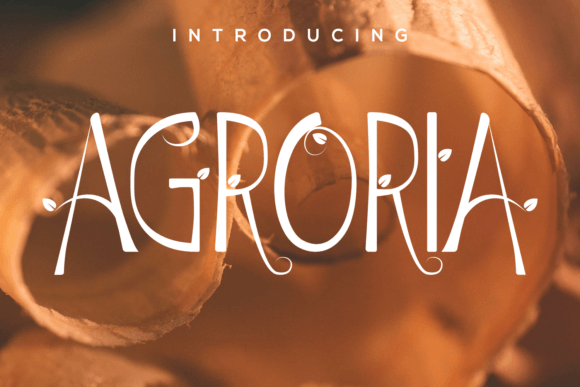
A New Dimension in Typography: Agroria Font
As creatives, we’ve all been there – staring at a blank canvas, waiting for that spark of inspiration to strike. It’s in those moments that we need the right tools to bring our ideas to life. For designers seeking a fresh and organic look, the wait is over. Agroria Font is here to revolutionize the way you approach typography.
This elegant display font is designed to evoke a sense of natural beauty, making it perfect for a wide range of design projects. From branding and advertising to packaging and editorial design, Agroria Font’s versatility is unmatched. With its unique blend of style and sophistication, it’s no wonder this font has become a favorite among designers.
Whether you’re a seasoned pro or just starting out, Agroria Font is a valuable addition to your design toolkit. Its organic feel and elegant lines make it an ideal choice for creating eye-catching designs that stand out from the crowd.
Agroria Font Key Features
- Font Family: Agroria Font is a modern sans-serif font family with a unique, hand-drawn feel.
- Character Set: Agroria Font includes a wide range of characters, including Latin, Cyrillic, and Greek alphabets, as well as punctuation and symbols.
- Unique Characteristics: Agroria Font features a unique, hand-drawn feel and a range of custom-designed ligatures and alternates.
Agroria Font Review
I recently had the chance to work with Agroria Font, and I’m excited to share my thoughts on this beautiful font family.
- Unique and elegant design: Agroria Font has a distinctive look that sets it apart from other fonts. Its combination of modern and classic elements makes it perfect for a wide range of projects.
- High-quality vector graphics: The font’s vectors are crisp and clean, making it ideal for printing and digital applications.
- Excellent legibility: Agroria Font is highly readable, even at small sizes, which is essential for any font.
- Limited language support: Agroria Font may not have the same level of language support as other fonts, which could be a concern for international projects.
- No bold or italic weights: While the font has a range of weights, it’s missing bold and italic options, which might be a limitation for some users.
Agroria Font is a beautiful and high-quality font family that excels in terms of design and legibility. While it has some limitations, its unique style and excellent vector graphics make it a great choice for many projects. If you’re looking for a font that stands out from the crowd, Agroria Font is definitely worth considering.
Tips for Getting the Most Out of Agroria Font
Here are some tips to help you get the most out of Agroria Font:
- Experiment with different font sizes and styles to find the perfect look for your design.
- Use Agroria Font in combination with other fonts to create a unique and visually appealing design.
- Pay attention to font pairing and balance to ensure your design looks professional and polished.
Agroria Font is ideal for:
- Print and digital marketing materials. Alternatives to Agroria Font
- Use Agroria Font for the main title, “Garden Party Invitation”, to set the tone for the event.
- Pair Agroria Font with a playful, handwritten font for the details, such as the date and time.
- Combine Agroria Font with floral illustrations and watercolor elements to create a cohesive and whimsical design.
- Use a pastel color palette to match the soft, feminine feel of Agroria Font.
- Emphasize the whimsical feel by adding floral patterns and illustrations.
- Use Agroria Font for the main quote or message, making it the focal point of the poster.
- Pair Agroria Font with a bold, sans-serif font for the title and other supporting text.
3 Creative Project Ideas using Agroria Font
Create a charming garden party invitation featuring Agroria Font. This elegant script font adds a touch of sophistication and romance to the design.
How to use Agroria Font:
Project 2: Modern Typography Poster
Create a modern typography poster featuring Agroria Font as the main attraction. This elegant font is perfect for showcasing a bold message or quote.
How to use Agroria Font: